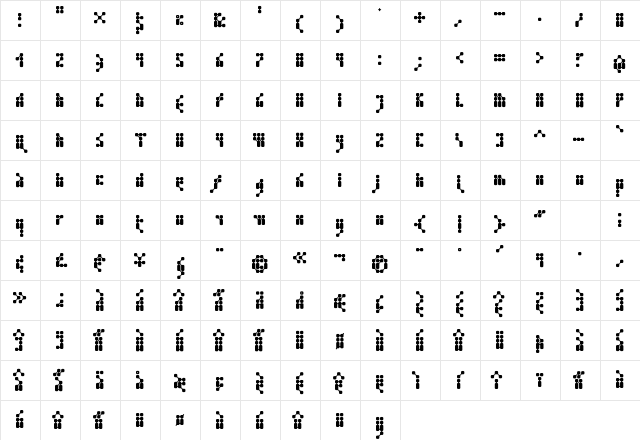
Kernfusion Regular Free Font
Kernfusion Regular
Design Context for Kernfusion
Kernfusion is a composed and adaptable typeface that performs quietly and consistently across a wide range of design contexts.